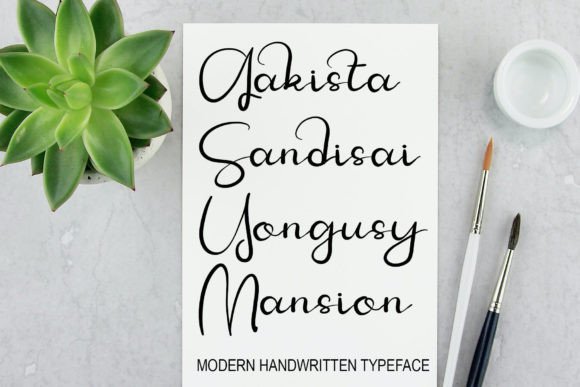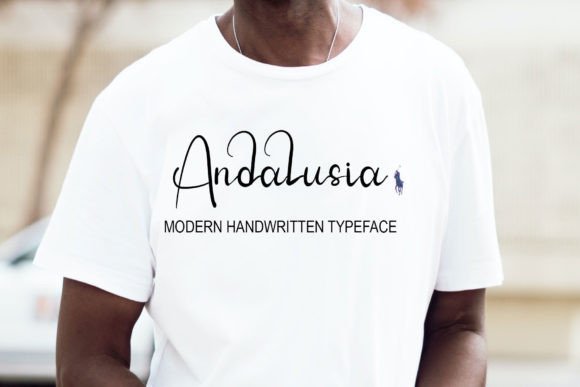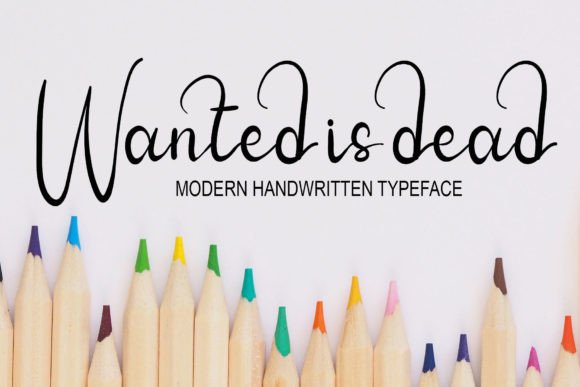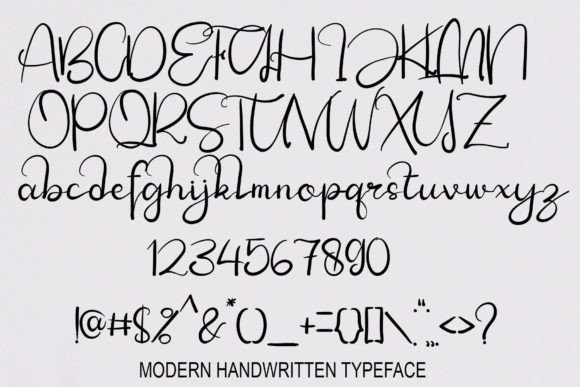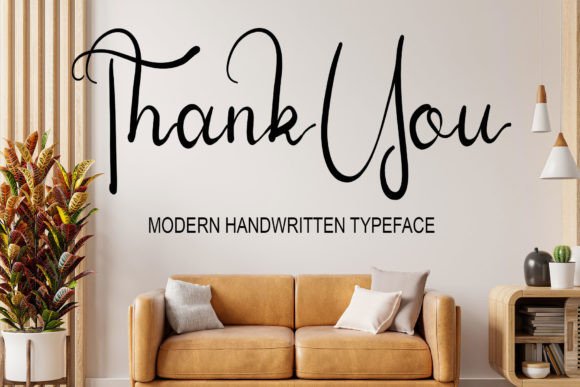
Bentara Font: A Simple yet Stylish Handwritten Font
In the world of typography, fonts play a crucial role in conveying messages, expressing emotions, and creating visual identities. Among the numerous fonts available, Bentara Font stands out for its simplicity, elegance, and versatility. In this article, we’ll explore the unique features of Bentara Font, its uses, and why it’s a great addition to any design project.
What is Bentara Font?
Bentara Font is a beautifully crafted handwritten font created using a tablet. The font’s simplicity is its greatest strength, making it perfect for a wide range of applications. The careful attention to detail and precision in its creation result in a font that exudes a sense of elegance and sophistication.
Characteristics of Bentara Font
Bentara Font boasts several characteristics that make it an excellent choice for designers and crafters:
- Simple and Elegant: The font’s simplicity makes it easy to read and understand, while its elegance adds a touch of sophistication to any design.
- Handwritten: The font’s handwritten nature gives it a personal and unique feel, making it perfect for projects that require a human touch.
- Versatile: Bentara Font can be used for a wide range of applications, from websites and wedding invitations to business cards and advertisements.
Uses of Bentara Font
Bentara Font is an incredibly versatile font that can be used in various design projects, including:
- Websites: Add a personal touch to your website with Bentara Font, making it perfect for blogs, portfolios, and e-commerce sites.
- Wedding Invitations: The font’s elegance and simplicity make it an excellent choice for wedding invitations, adding a touch of sophistication to your special day.
- Business Cards: Stand out from the crowd with Bentara Font on your business cards, conveying a sense of professionalism and style.
- Signatures: Add a personal touch to your email signatures, documents, and letters with Bentara Font.
- Advertisements: Whether it’s product advertisements or other promotional materials, Bentara Font is an excellent choice for creating eye-catching and stylish ads.
Why Choose Bentara Font?
With so many fonts available, why choose Bentara Font? Here are a few reasons:
- Unique: Bentara Font’s handwritten nature and simplicity make it a unique addition to any design project.
- Easy to Read: The font’s clarity and simplicity ensure that your message is conveyed effectively, making it easy for readers to understand.
- Stylish: Despite its simplicity, Bentara Font exudes a sense of style and sophistication, making it perfect for designers and crafters who want to create visually appealing designs.
In conclusion, Bentara Font is an excellent choice for designers and crafters looking for a simple yet stylish handwritten font. Its versatility, elegance, and simplicity make it perfect for a wide range of applications, from websites and wedding invitations to business cards and advertisements. With Bentara Font, you can add a personal touch to your design projects, conveying a sense of sophistication and style.